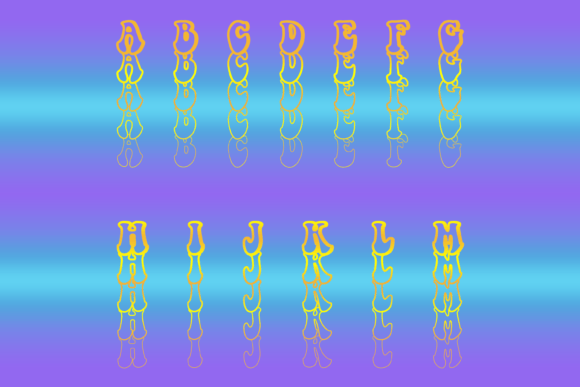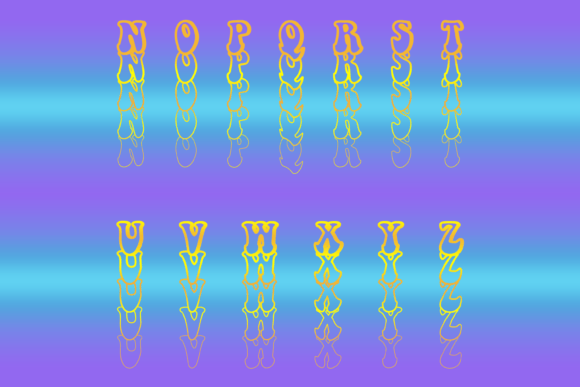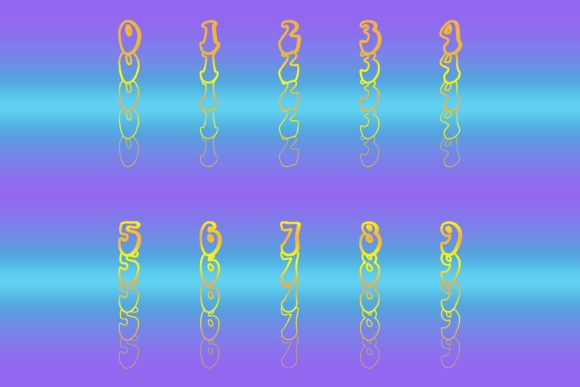
Introduction to Far out Font Font
Far Out is an incredibly cool display font.
Whether you use it for custom designs, DIY crafts, or just any creation that requires a lovely touch, this font will be an amazing choice .
Key Features of Far out Font Font